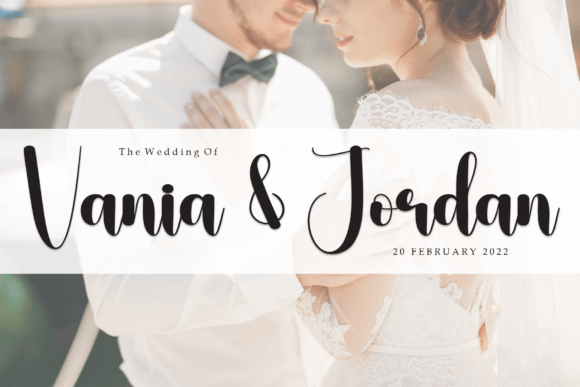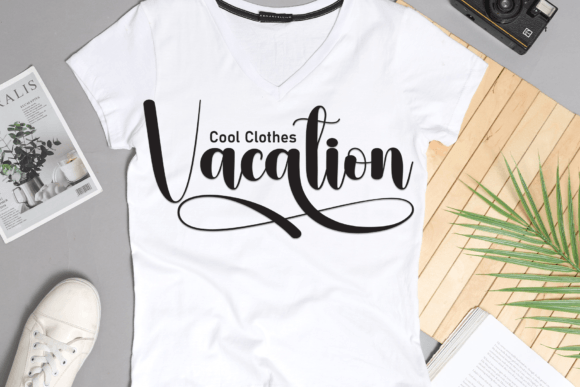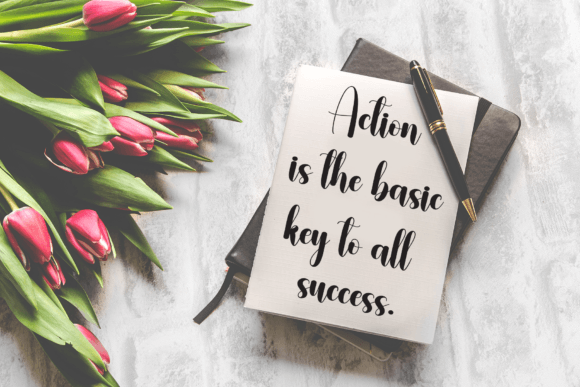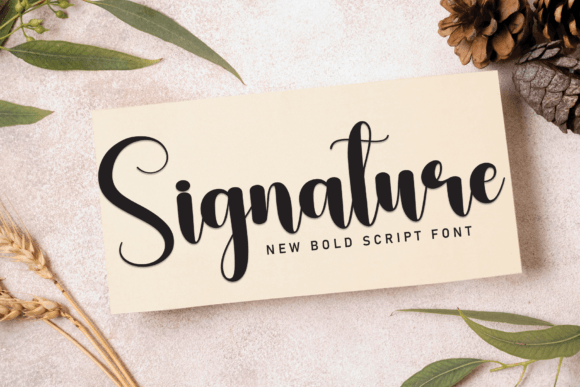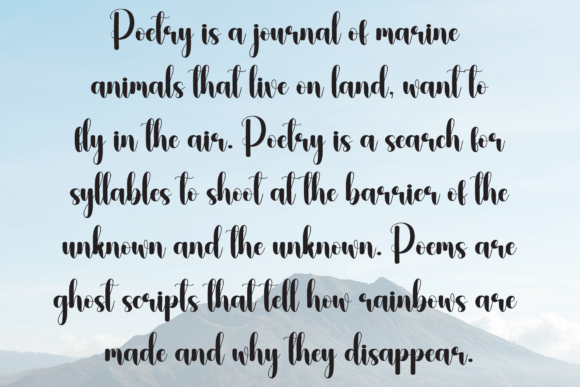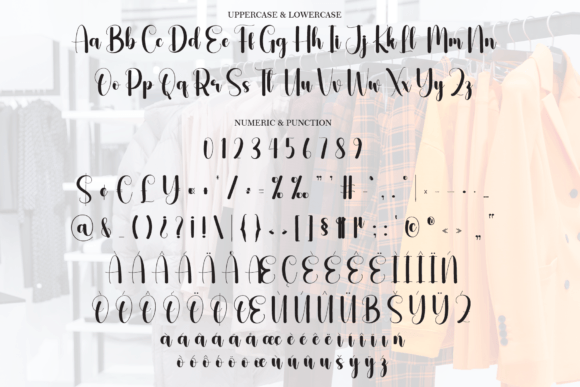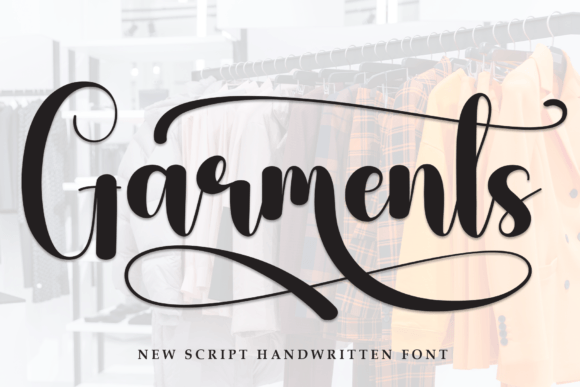
Introducing Garments Font: The Sweet and Friendly Handwritten Font for Your Design Needs
Are you a designer or crafter looking for a font that can add a touch of warmth and personality to your designs? Look no further than Garments Font! This beautiful handwritten font is perfect for creating wedding invitations, cards, and other designs that require a lovely and elegant touch.
What is Garments Font?
Garments Font is a sweet and friendly handwritten font that is designed to bring a sense of joy and playfulness to your designs. With its cute and fun style, this font is ideal for anyone who wants to create designs that are both visually appealing and emotionally engaging.
Key Features of Garments Font
- Handwritten style: Garments Font has a beautiful handwritten style that gives it a personal and unique touch.
- Cute and fun: This font is designed to be cute and fun, making it perfect for designs that require a playful touch.
- Versatile: Garments Font can be used for a wide range of designs, from wedding invitations and cards to posters and social media graphics.
- Elegant and sophisticated: Despite its playful style, Garments Font has an elegant and sophisticated feel that makes it perfect for more formal designs.
Uses for Garments Font
Garments Font is a versatile font that can be used for a wide range of designs. Here are some ideas to get you started:
- Wedding invitations: Garments Font is perfect for creating beautiful and elegant wedding invitations that will set the tone for your special day.
- Cards: Whether you’re creating birthday cards, thank you cards, or holiday cards, Garments Font is a great choice.
- Posters and flyers: This font is also great for creating posters and flyers for events, promotions, and products.
- Social media graphics: Garments Font can be used to create engaging and visually appealing social media graphics that will help you stand out from the crowd.
Why Choose Garments Font?
There are many fonts to choose from, but Garments Font stands out for several reasons:
- Unique style: Garments Font has a unique and distinctive style that will help your designs stand out.
- Easy to read: Despite its playful style, Garments Font is easy to read and understand, making it perfect for designs that require a clear message.
- Customizable: This font can be customized to fit your design needs, including adjusting the size, color, and style.
Tips for Using Garments Font
Here are some tips for using Garments Font in your designs:
- Pair with other fonts: Garments Font can be paired with other fonts to create a unique and visually appealing design.
- Use for headings and titles: This font is perfect for headings and titles, but can also be used for body text.
- Experiment with colors: Garments Font looks great in a variety of colors, so don’t be afraid to experiment and find the perfect color for your design.
Garments Font is a beautiful and versatile handwritten font that is perfect for designers and crafters who want to add a touch of warmth and personality to their designs. With its cute and fun style, elegant feel, and versatility, this font is ideal for a wide range of designs, from wedding invitations and cards to posters and social media graphics. So why not give Garments Font a try and see how it can elevate your designs?